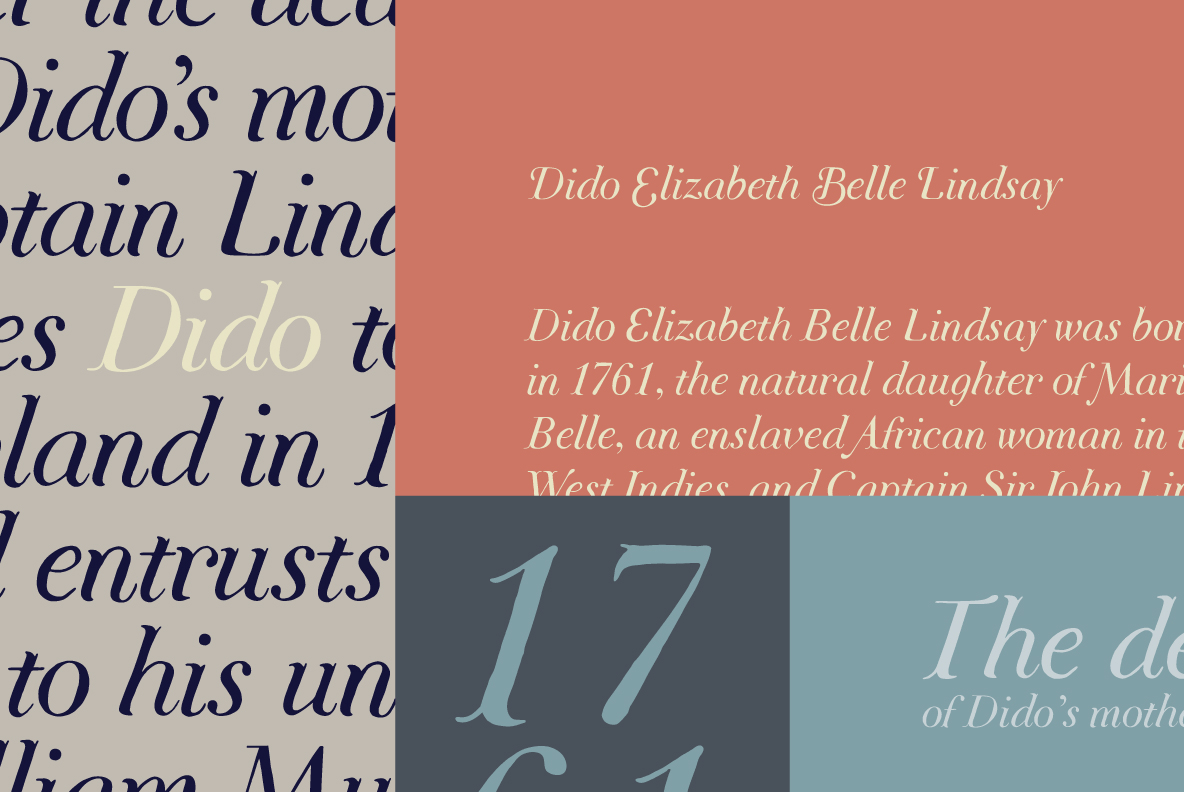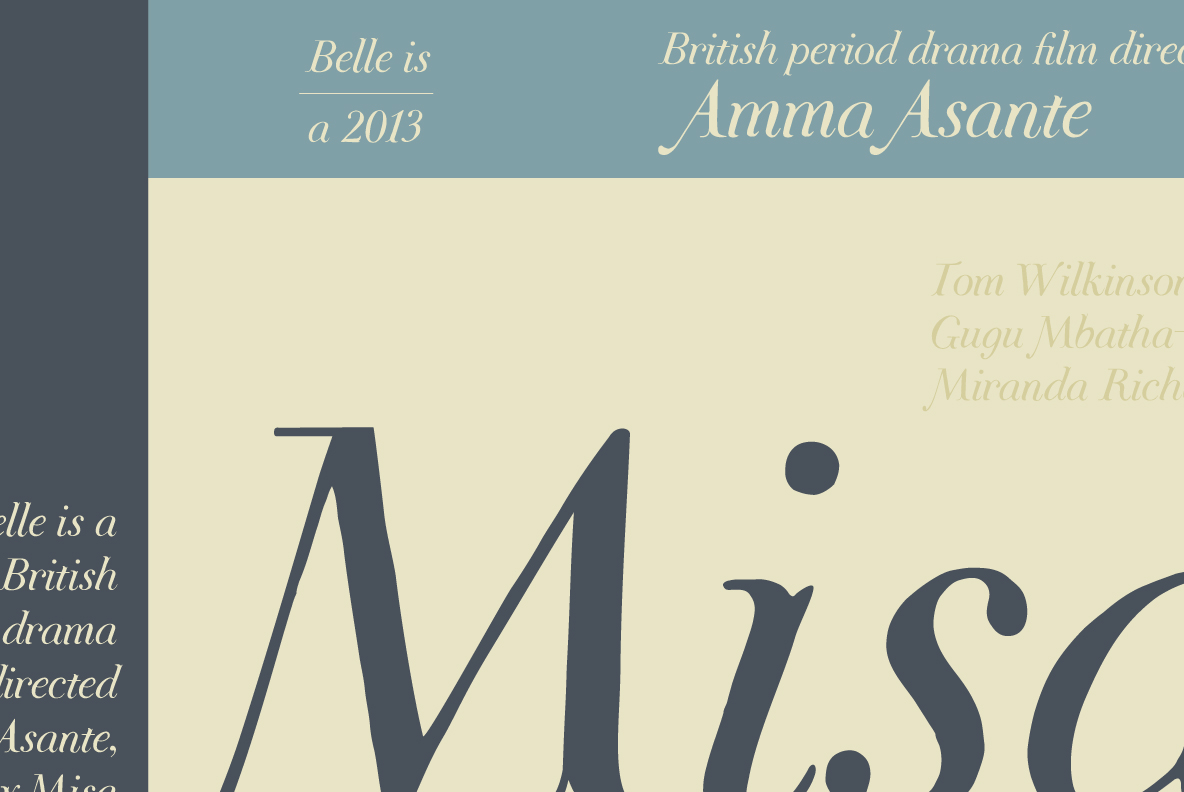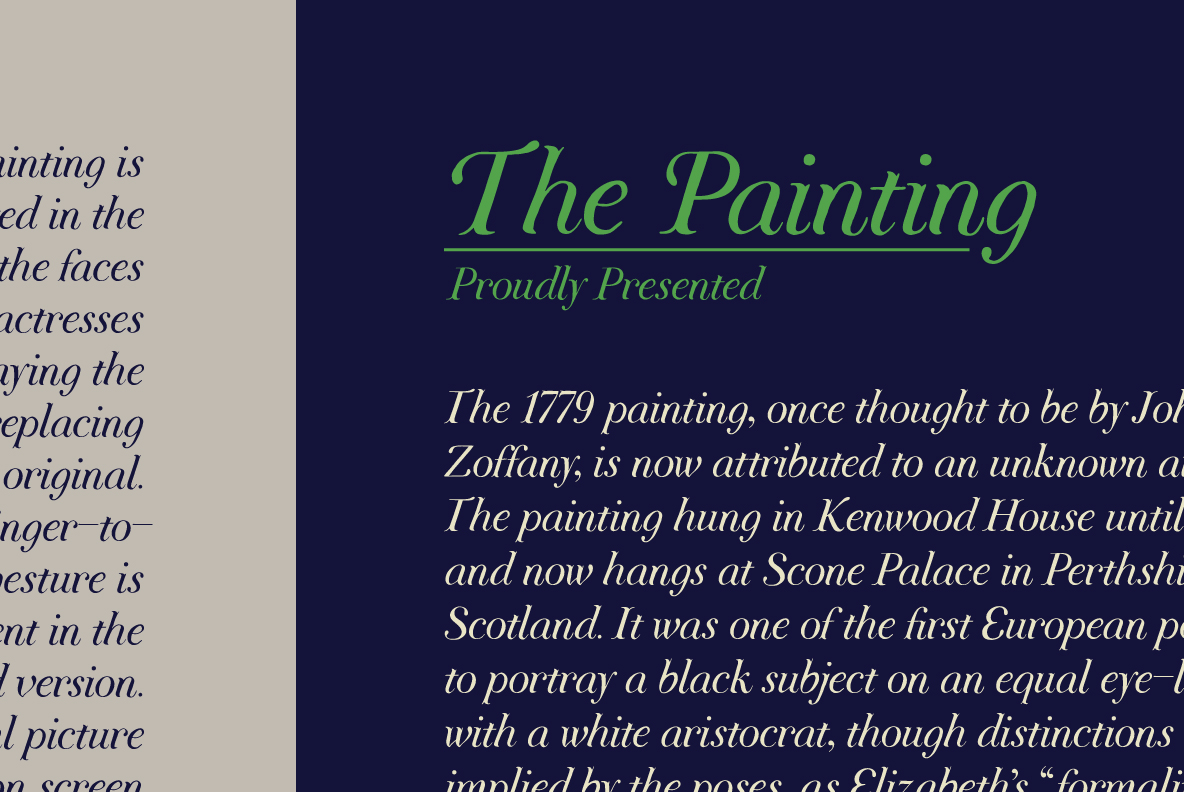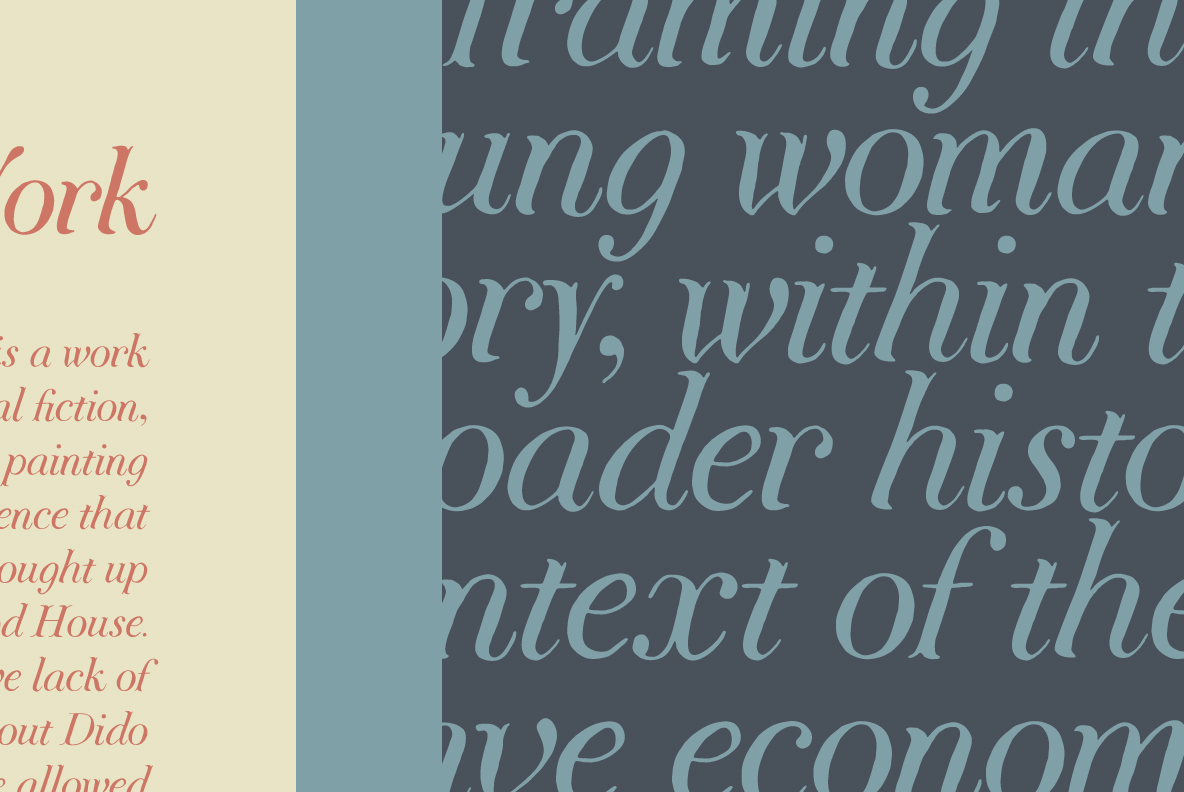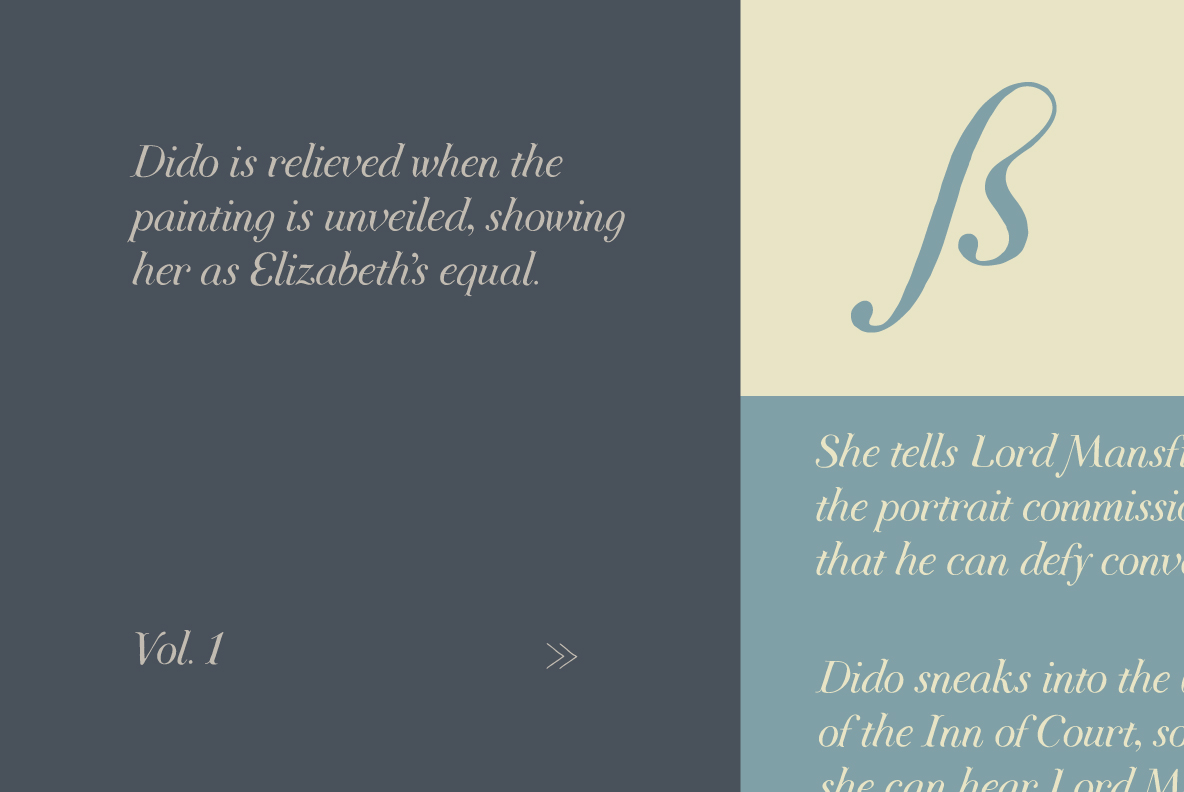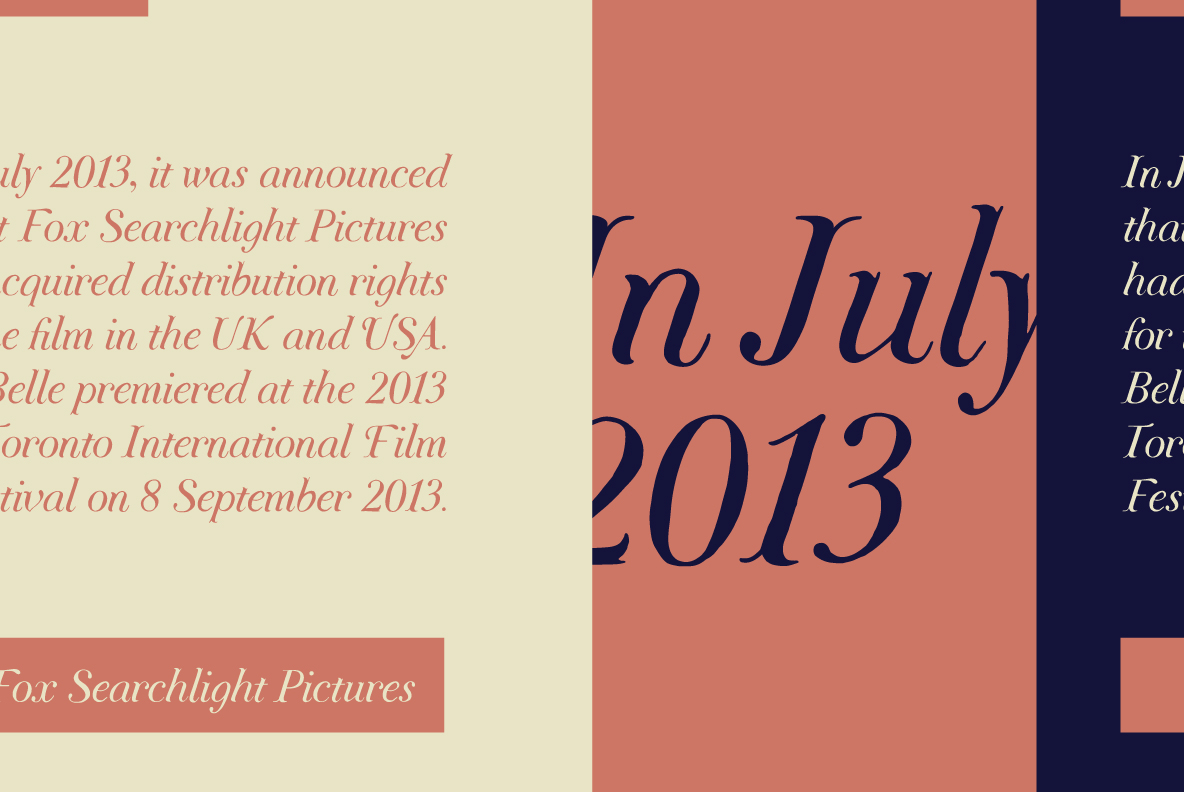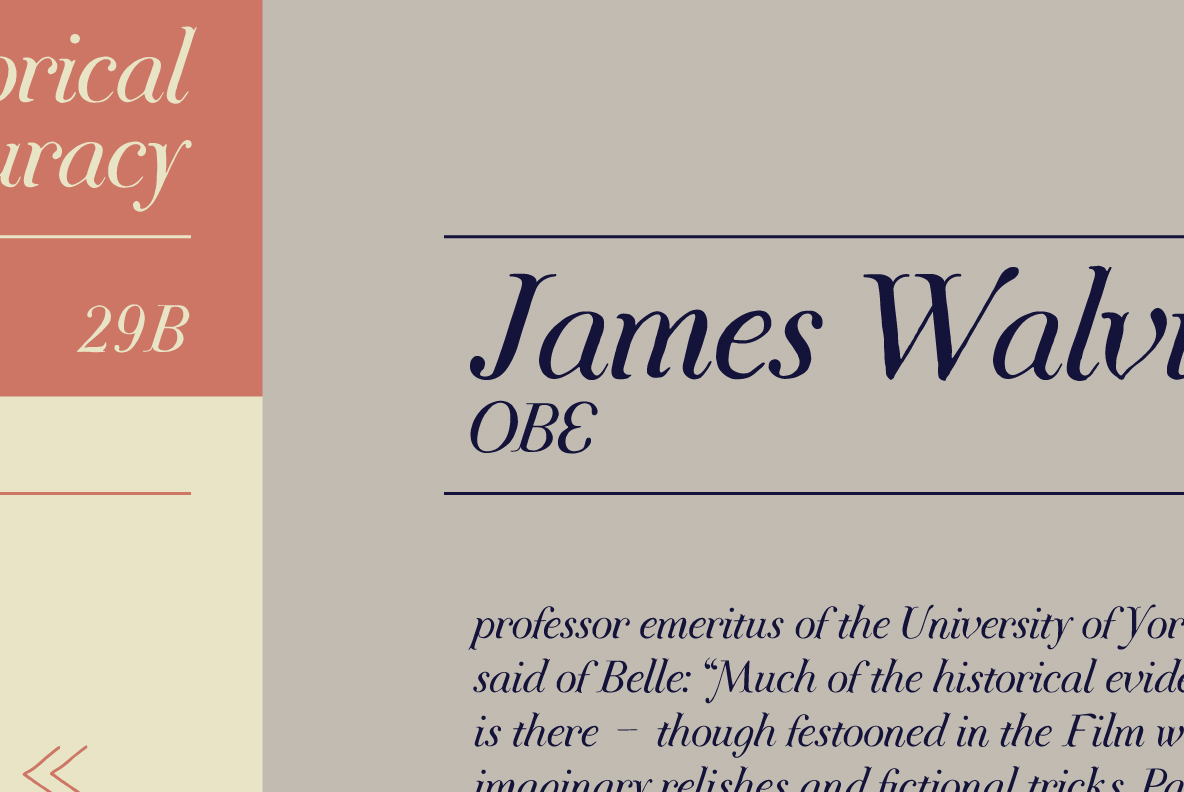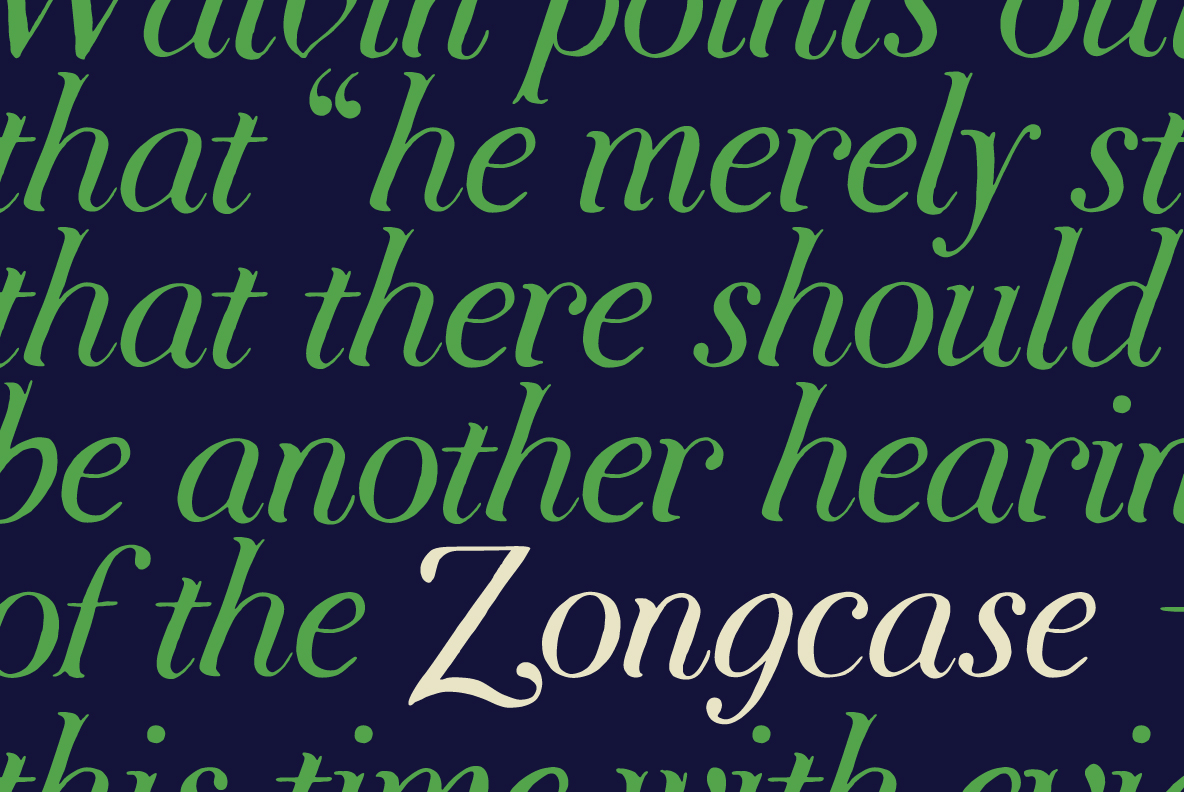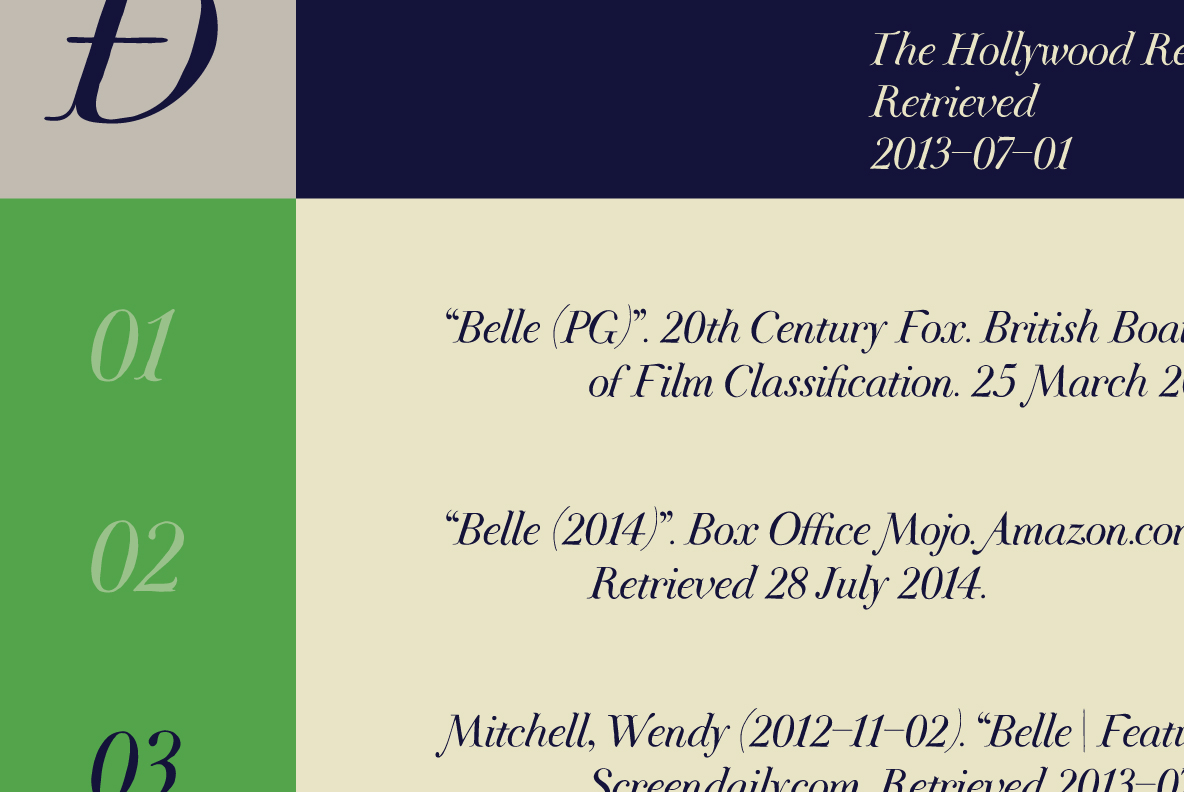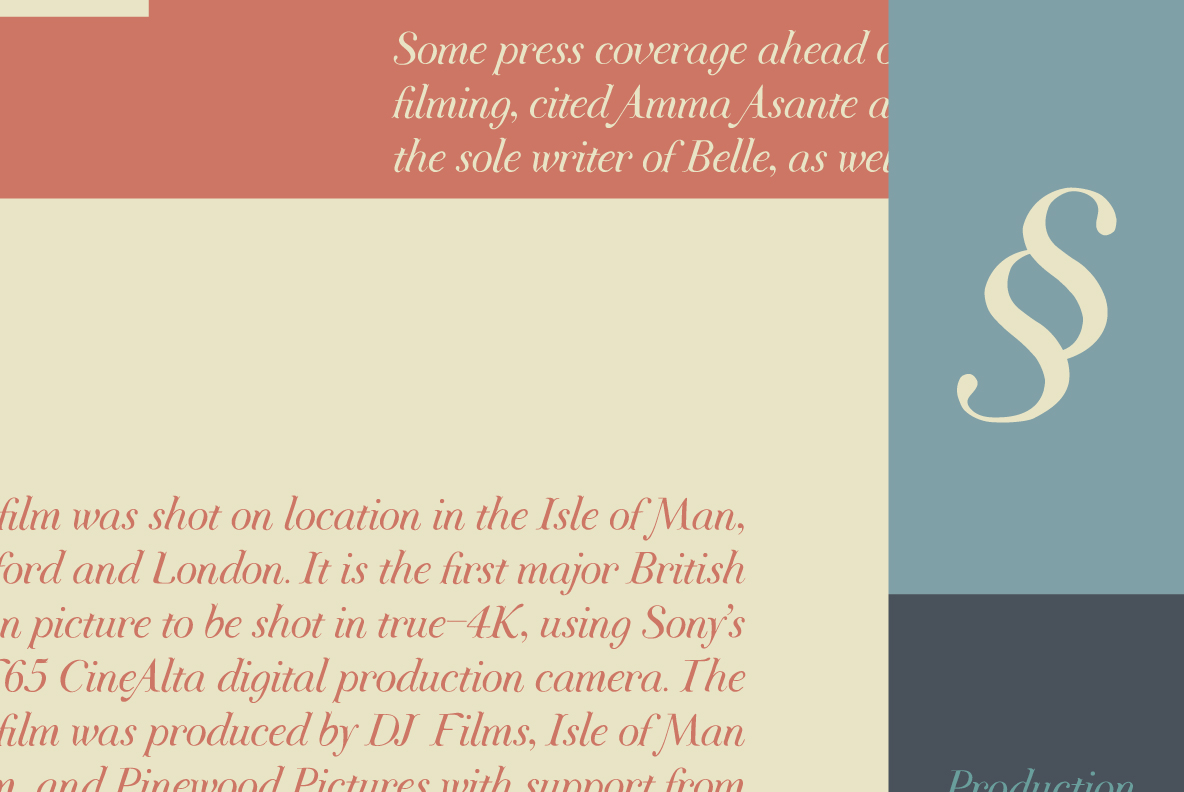
YWFT Belle
YWFT Belle is an elegant script font, that is developed in opentype format. Initially inspired by the classic serif, Didot, with its graceful thick to thin forms, YWFT Belle takes on a similar sophistication, but also exudes a subtle playfulness. YWFT Belle contains an extra set of upper and lowercase letter designs via the opentype swash option.